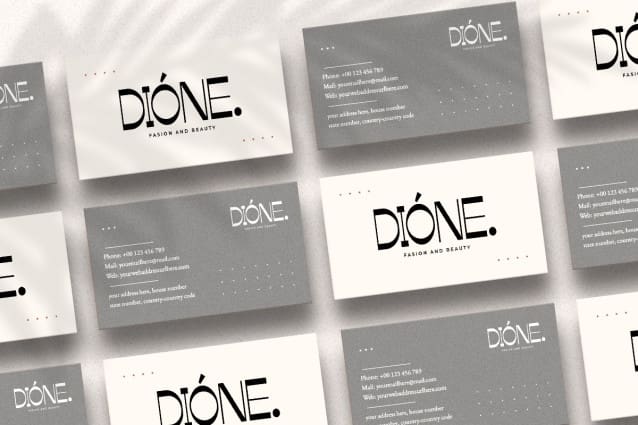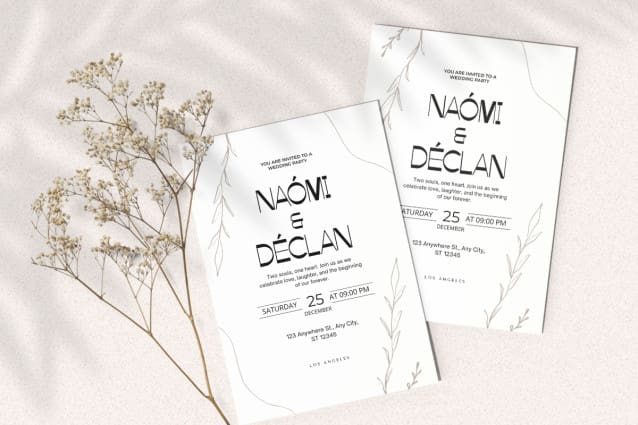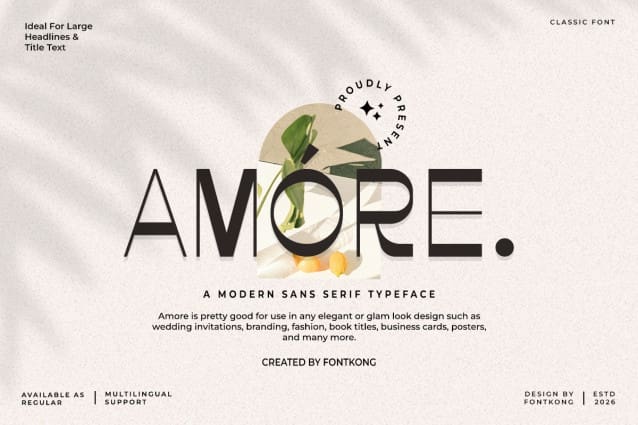
Amore Sans Serif Font – Modern Classy Unique Sans Serif Font is one of our Sans Serif fonts. If you want a sans-serif font that is readable and easy to work with, you should consider choosing Amore Sans Serif Font – Modern Classy Unique Sans Serif Font for your project.
Amore Sans Serif Font – Modern Classy Unique Sans Serif Font is a clean and simple font with a very minimalistic style. This font is a modern, bold font. You can use this font as a digital and print font, such as for magazines, posters, and flyers.
You can also use Amore Sans Serif Font – Modern Classy Unique Sans Serif Font for branding purposes, such as creating logos or taglines for brands, brand packaging, and advertising. Some examples of products include; business cards, invitations, and placemarks. Make sure the font size must be considered in its application.